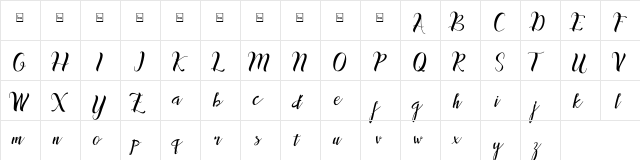
inthai Regular
Design Context for inthai Typeface
inthai is a composed and adaptable typeface that performs quietly and consistently across a wide range of design contexts.